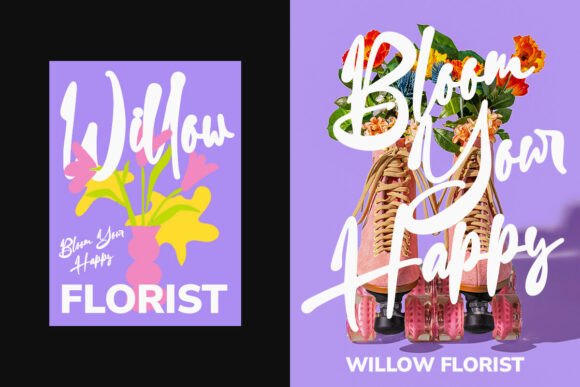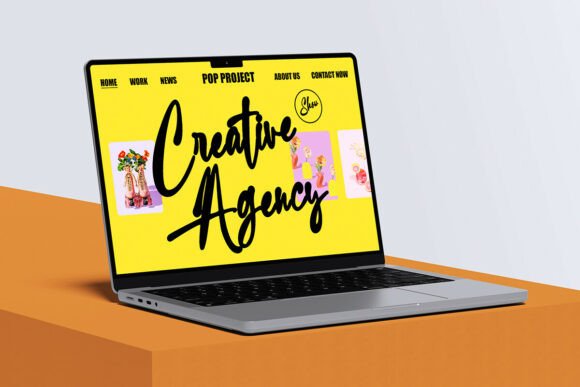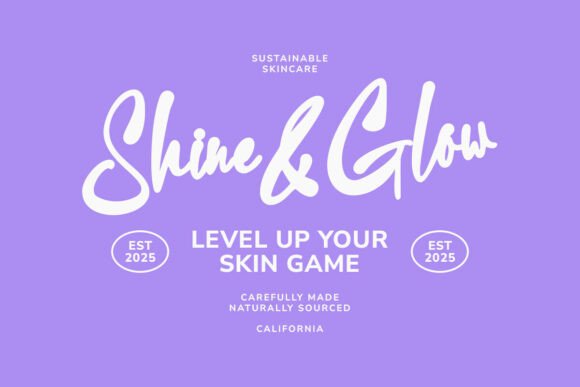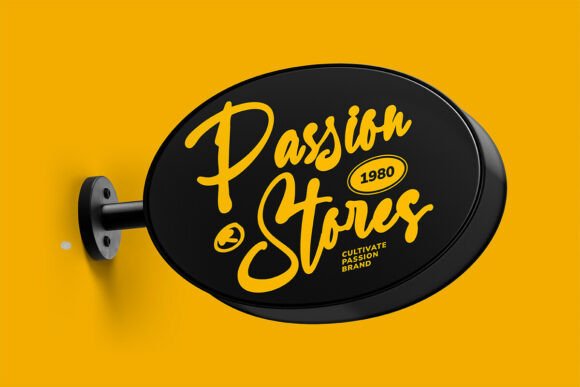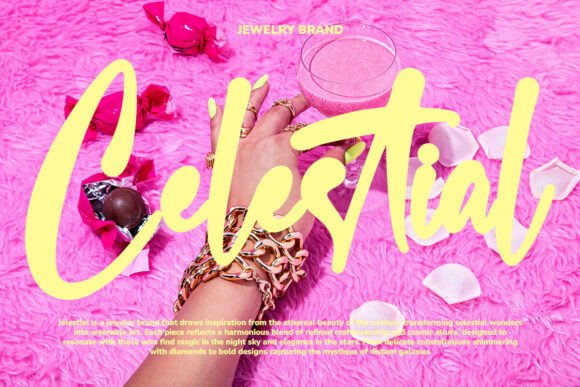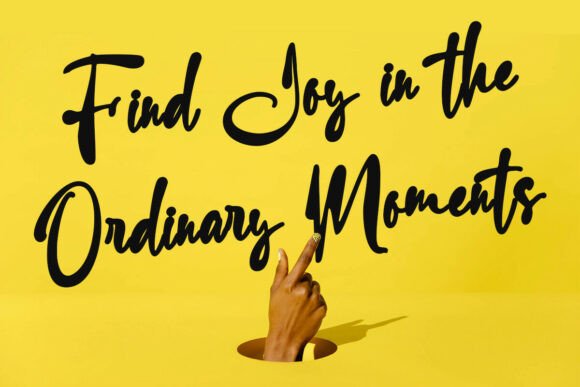
Introduction to Keira Juniper Font
Have you ever stared at a blank design canvas, struggling to find the perfect font to bring your creative project to life? That’s a familiar feeling for many designers, but what if you could add a dash of personality and flair to your work with just one font? Enter the Keira Juniper Font, a bold handwritten script that’s sure to make your designs stand out.
With its smooth curves and expressive ligatures, the Keira Juniper Font exudes a confident, playful vibe that’s perfect for anything from social media quotes to packaging and invitations. Whether you’re looking to add a touch of whimsy or modern sophistication to your work, this font is a versatile design resource that’s sure to deliver.
Key Features of Keira Juniper Font
- High-quality, elegant script font designed for creative projects, ideal for wedding invitations, quotes, and other design resources.
- Includes a range of ligatures and swashes, adding a touch of sophistication and elegance to any design.
- Perfect for designers and artists working on creative projects, offering a unique and stylish font option.
Honest Review: Keira Juniper Font
I recently had the chance to try out the Keira Juniper Font, and I must say I was impressed. This free download is a fantastic addition to any designer’s toolkit, especially when working on creative projects that require a high-quality, elegant touch.
What works well: ✨ The Keira Juniper Font has a beautiful, natural feel that’s perfect for designing materials that need a more relaxed, organic vibe. Its high quality is evident even at smaller font sizes, making it a great choice for projects where text will be read in a variety of contexts.
Any limitations: ⚠️ While the Keira Juniper Font is incredibly versatile, I did find that it’s not the best choice for projects that require a bold, attention-grabbing font. Its delicate nature makes it more suited to designs that need a subtle, elegant touch.
Overall, I’m a big fan of the Keira Juniper Font. Its high quality, versatility, and free download make it a must-have resource for any designer working on creative projects.
The Keira Juniper Font is perfect for a wide range of creative projects, including:
- Printed materials, such as business cards and brochures